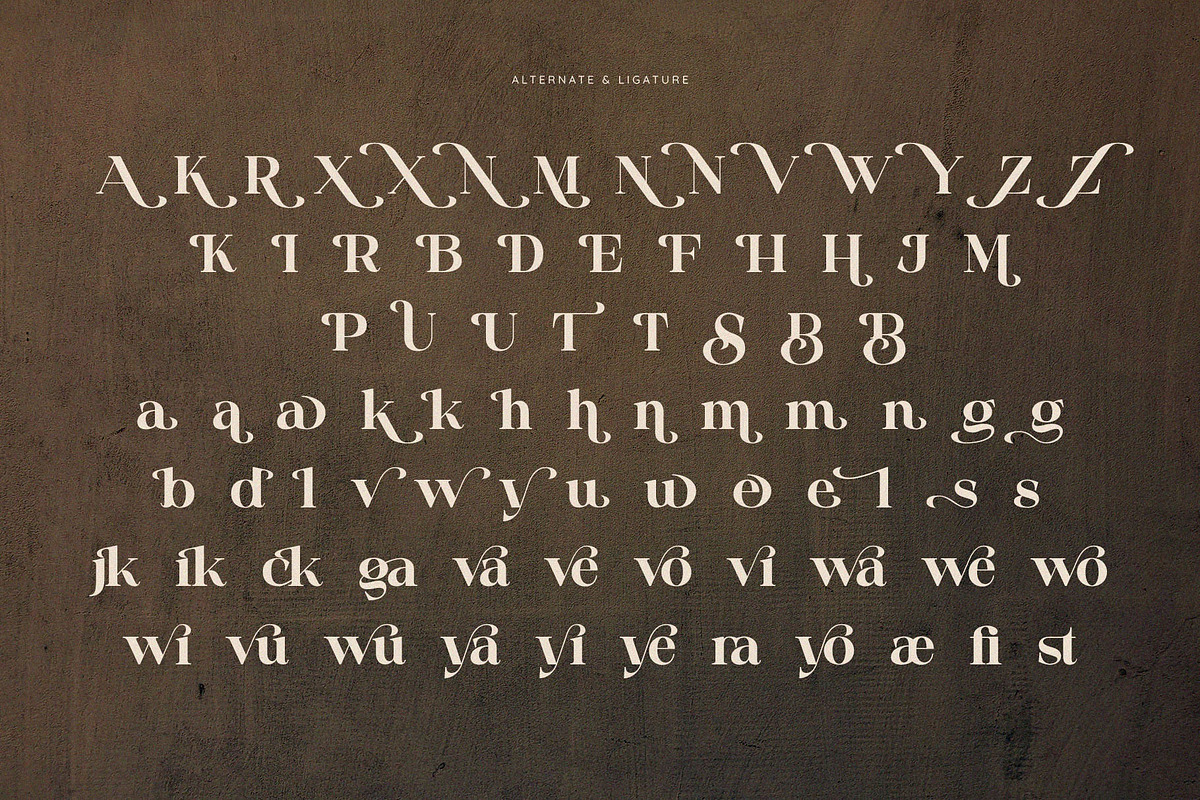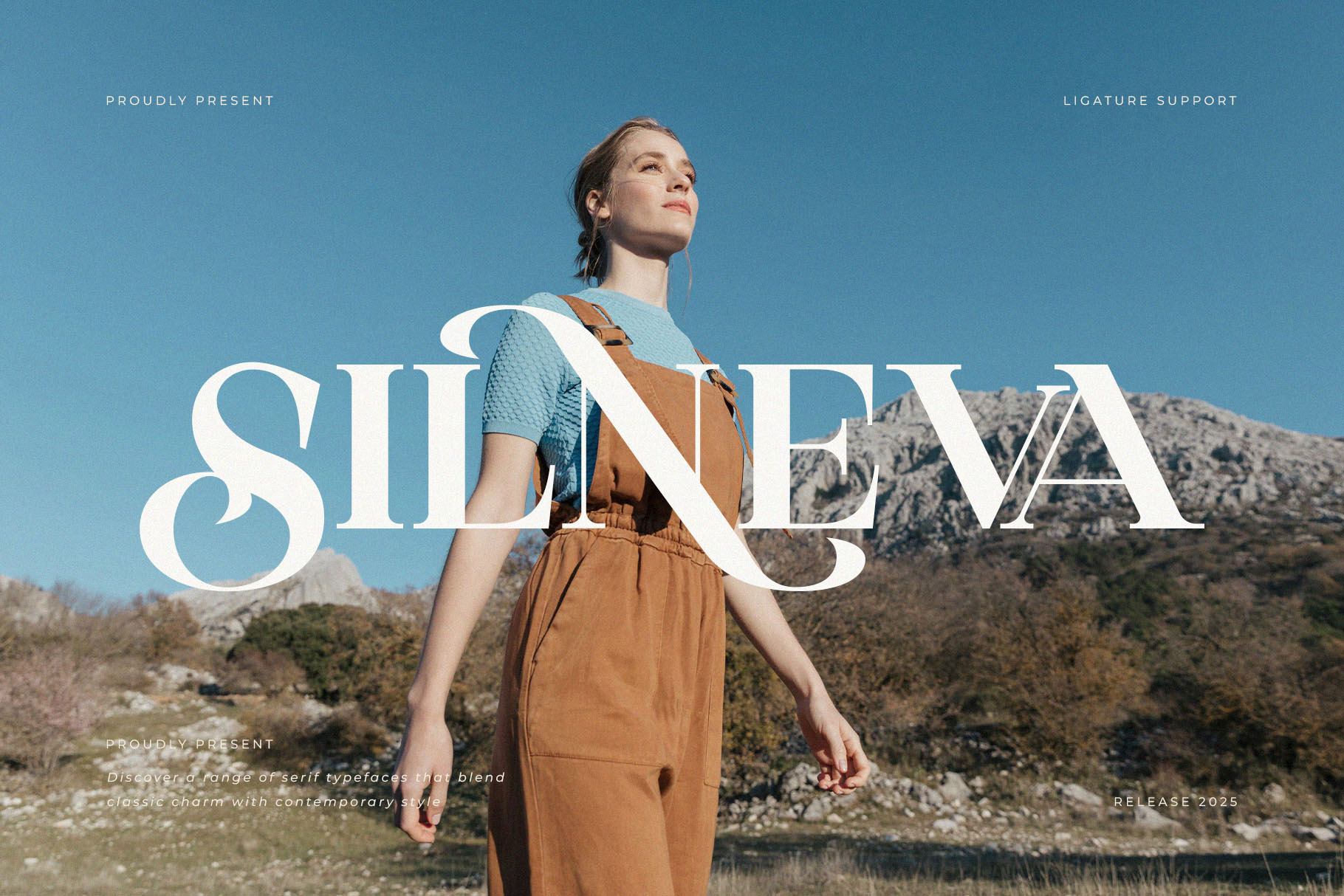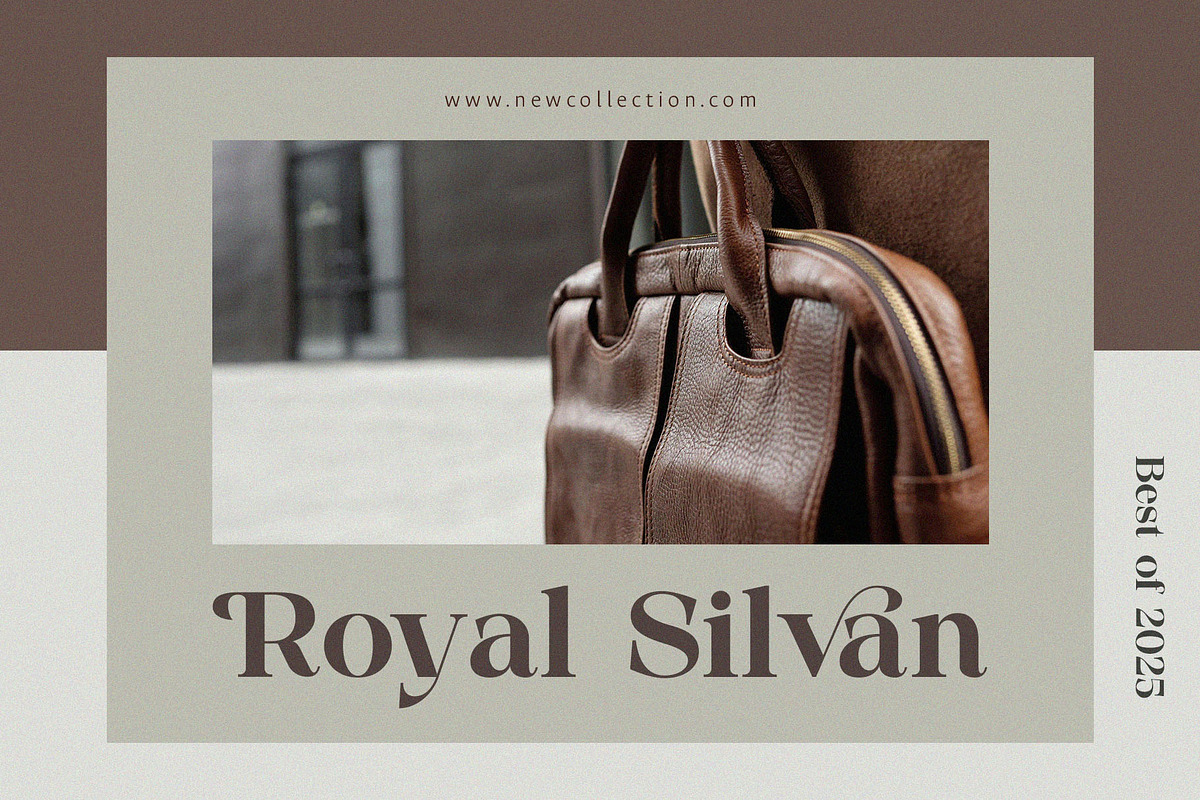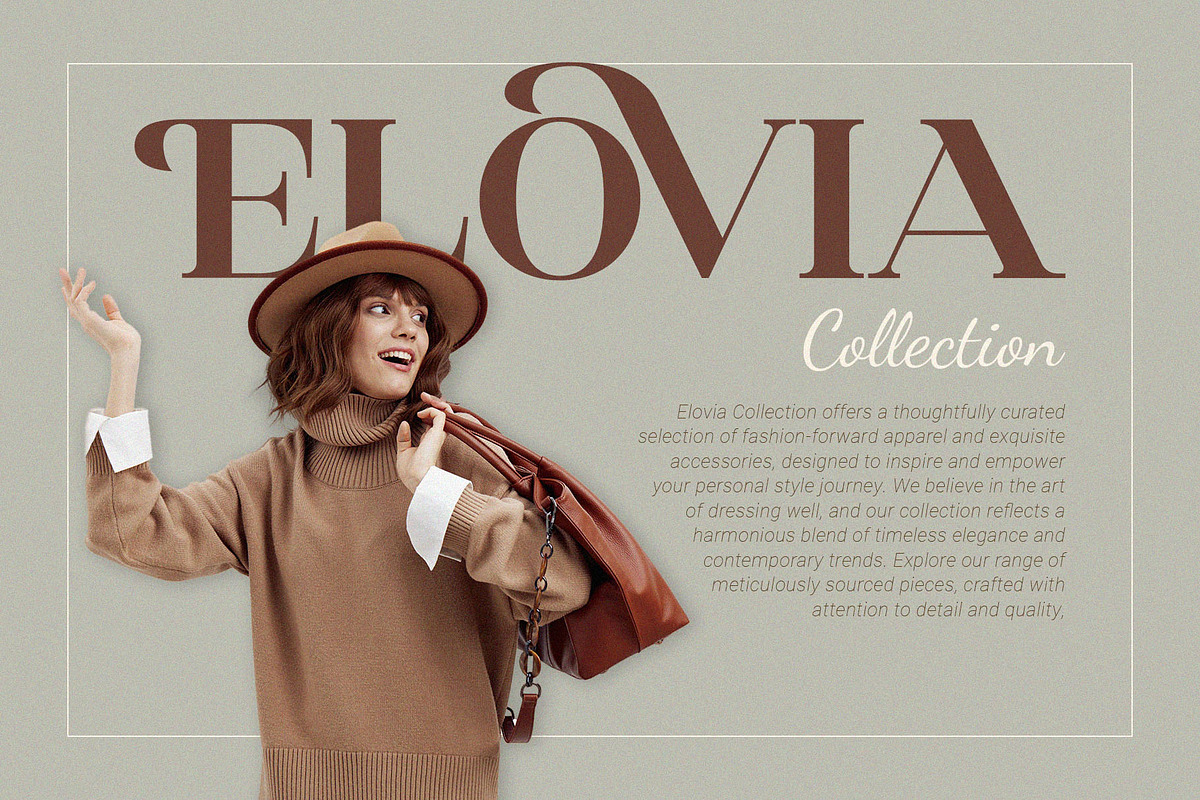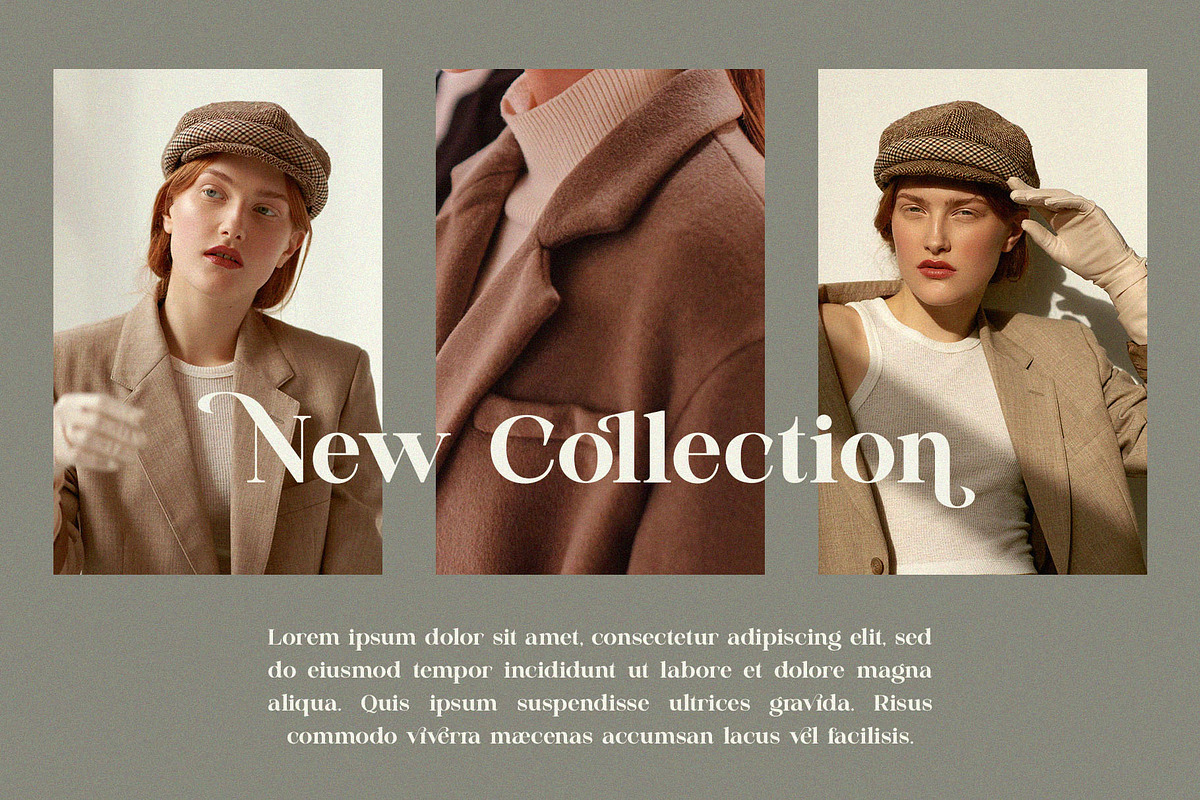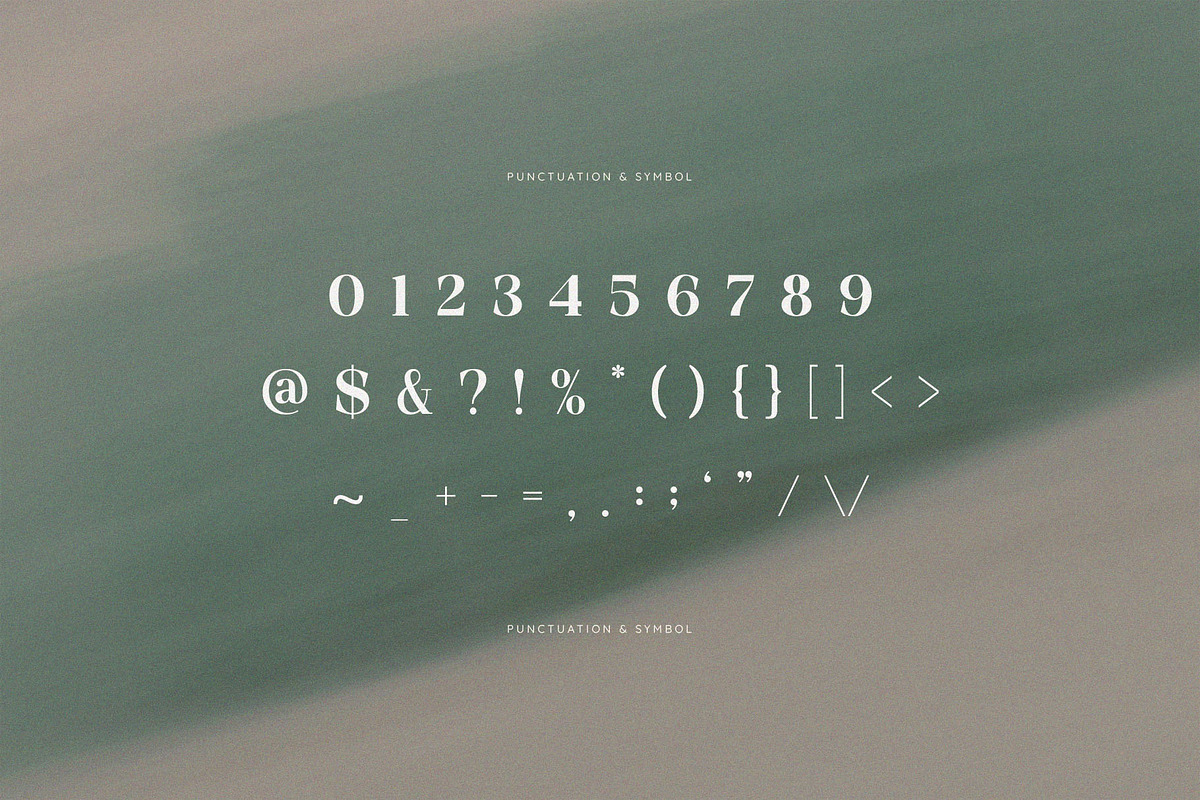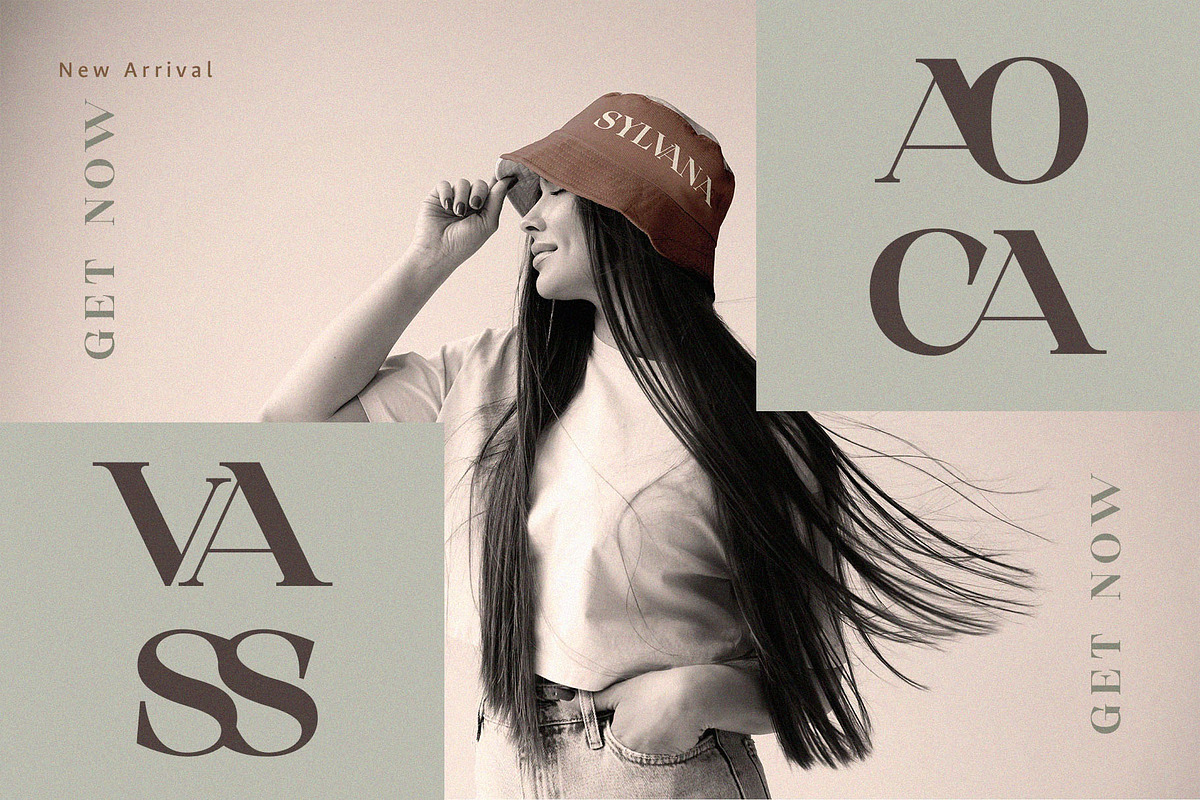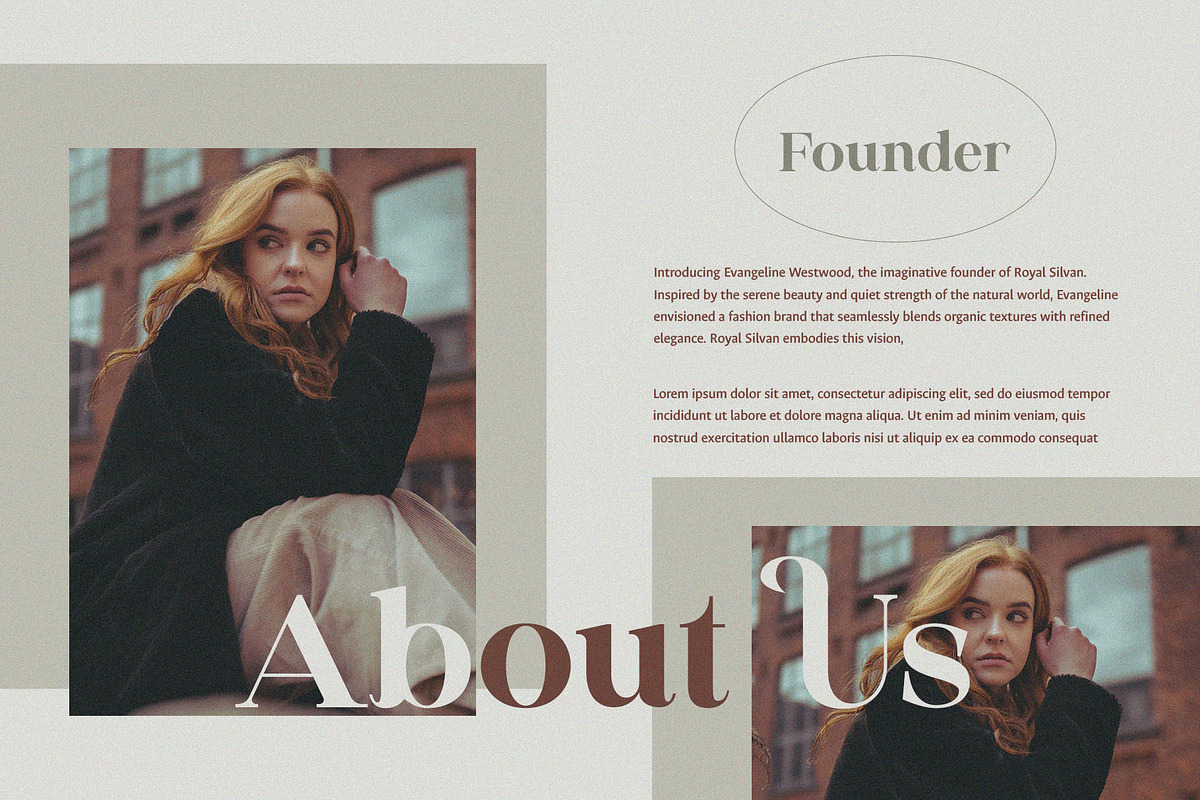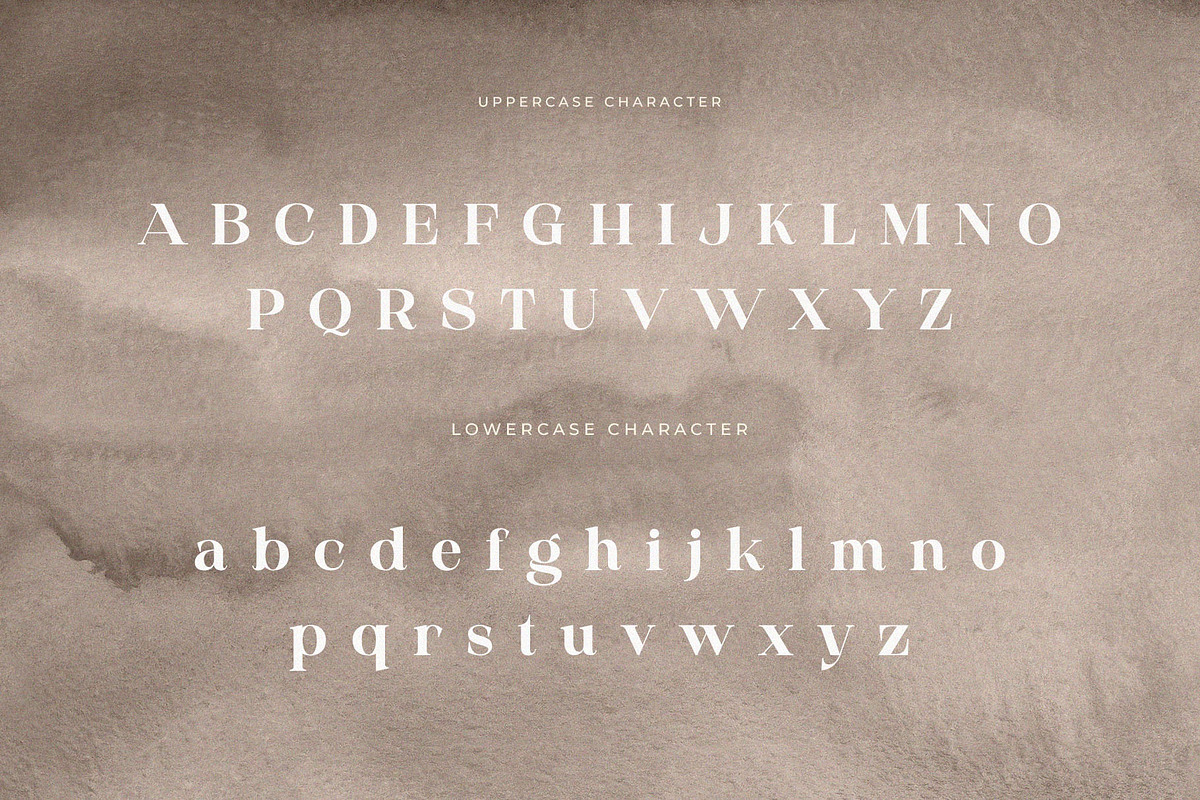
Silneva – Elegant Display Serif Font
Introducing Silneva Modern Display Serif Font. Silneva is a modern and classy typeface, best used as a display for headings, logos, branding, magazines, product packaging and invitations. Silneva come with clean lines and smooth curves give any project an extra touch of class.